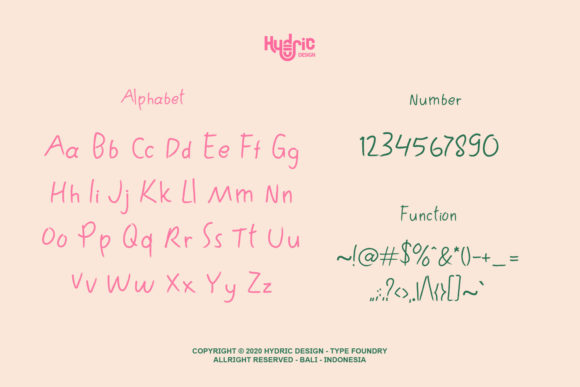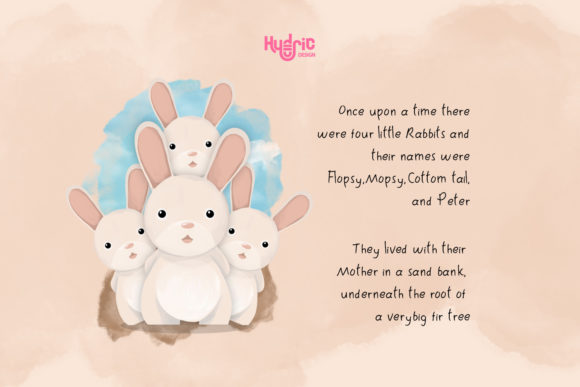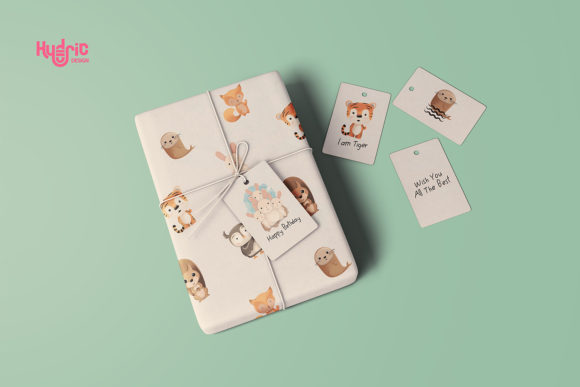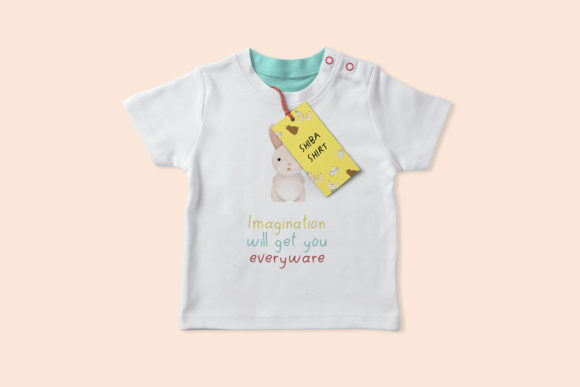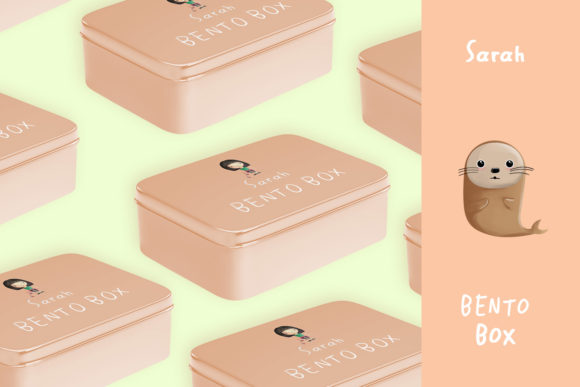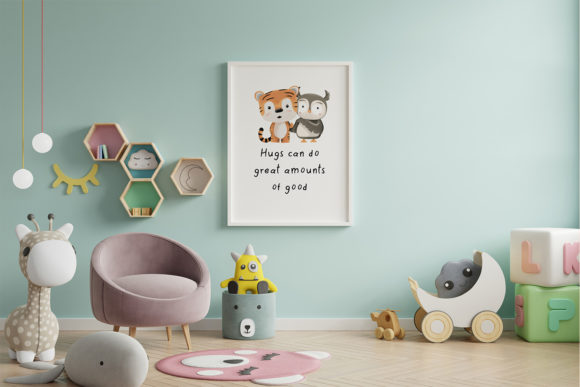
Introduction to Kodomo Handwritten Font
Kodomo Handwritten is a sweet and drolly handwritten font – perfect for casual type in greeting cards, illustrations, quotes, quaint branding, book covers, children’s books, packaging, and many more.
Key Features of Kodomo Handwritten Font
Why Choose Kodomo Handwritten Font?